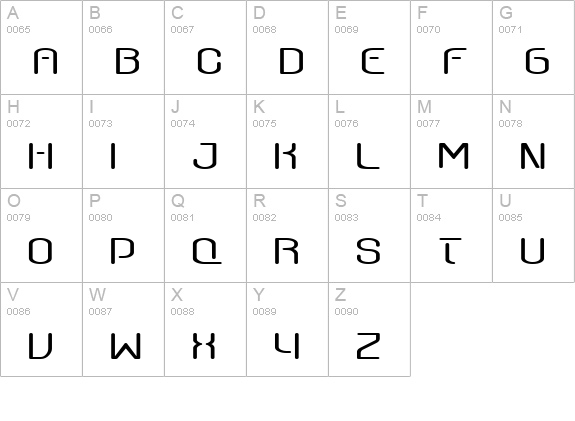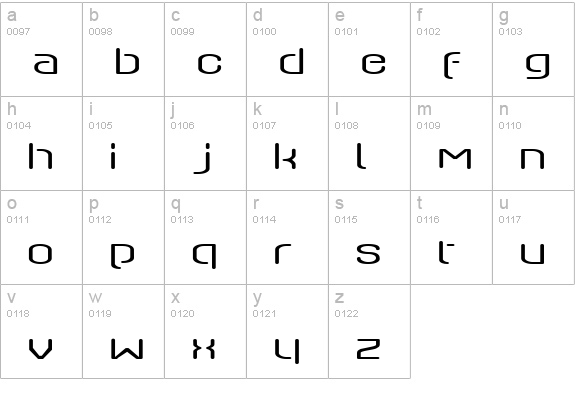
Axaxax light Font Details
Axaxax light is a refined, elegant variant in the Axaxax typeface family \xE2\x80\x94 well suited to elegant body text, refined sub-headings, and luxury branding.
The Axaxax light font is a stunning and elegant typeface that exudes sophistication and modernity. Its clean lines and sleek design make it perfect for a wide range of projects, from branding to editorial design. The light weight of this font adds a touch of elegance and refinement to any text. Best of all, the Axaxax light font is available for free download at FontsMarket.com. This means you can easily access this beautiful typeface and use it in your projects without any cost. Whether you're working on a personal or commercial project, the Axaxax light font is a versatile and stylish choice that will elevate your designs to the next level. Download it today and see the difference it can make in your work!